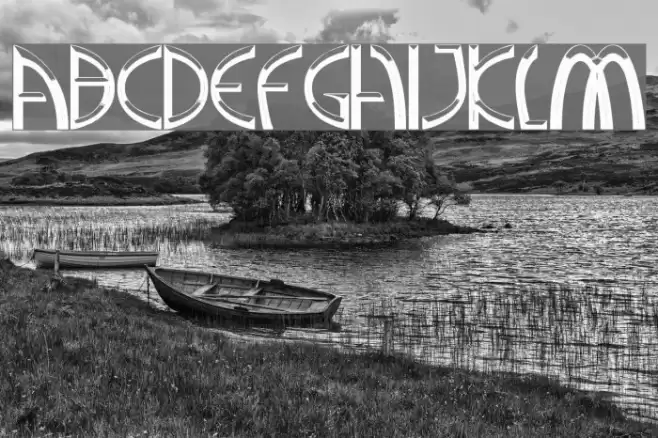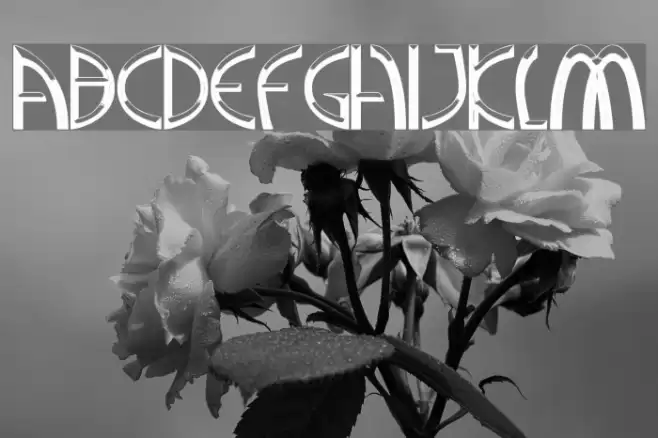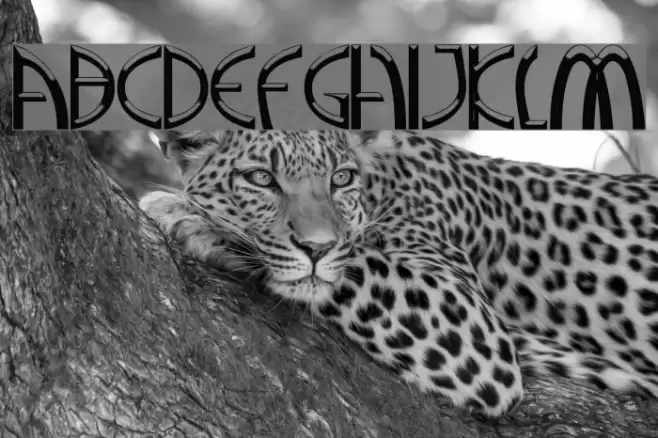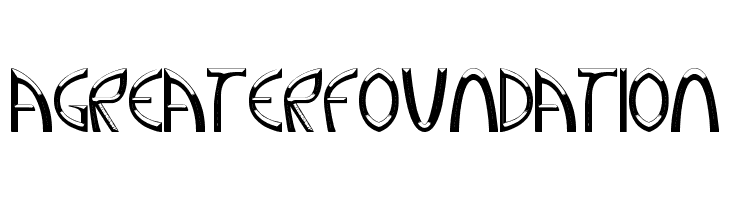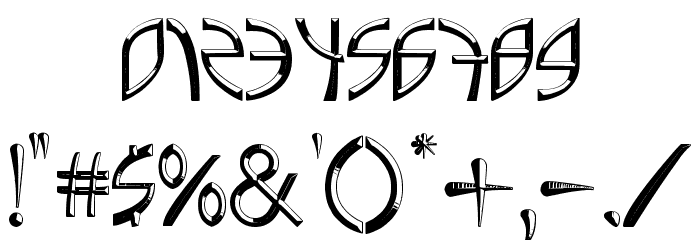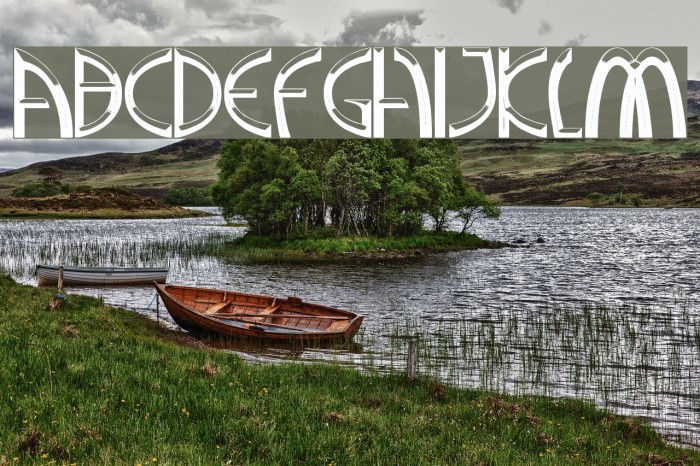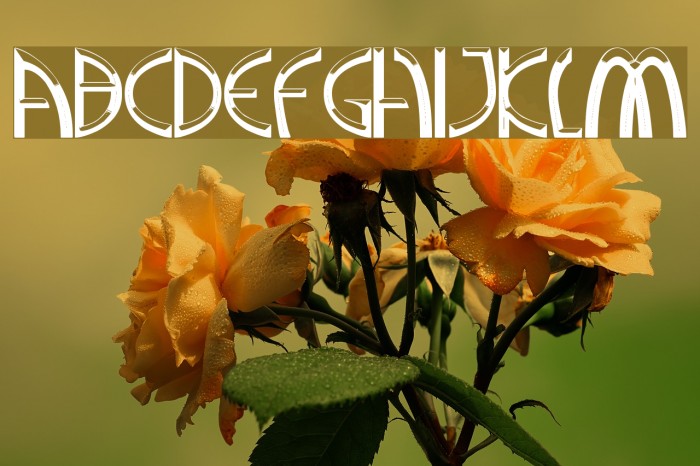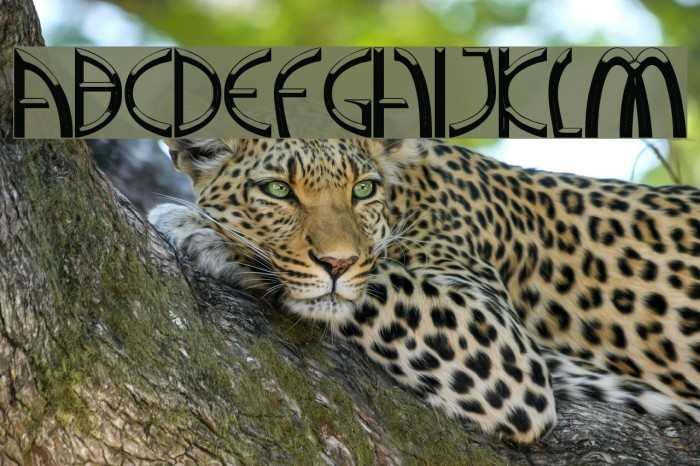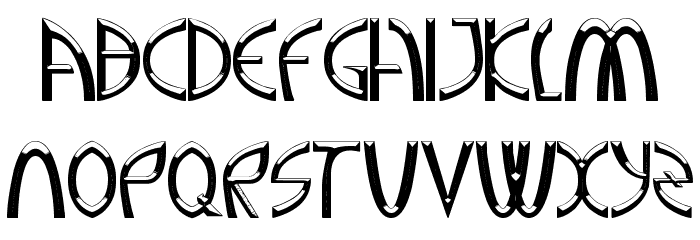
A Greater Foundation Font
A Greater Foundation Description
This font features a bold and futuristic design with a unique geometric structure. The characters are crafted with sharp angles and distinct curves, creating a dynamic and eye-catching appearance. The uppercase letters exhibit a strong presence with wide strokes and a slight slant, while the lowercase letters maintain a consistent style with a more compact form. The numbers are designed to match the overall aesthetic, offering a cohesive look across all characters. Special characters are included, each with a creative twist that complements the font's modern vibe. The font's boldness and high contrast make it ideal for impactful designs.
A bold, futuristic font with geometric shapes and high contrast from Uncategorized fonts.
- Proposed Projects: Ideal for sci-fi movie posters, tech branding, video game titles, and futuristic event flyers.
- Overall Style: Futuristic